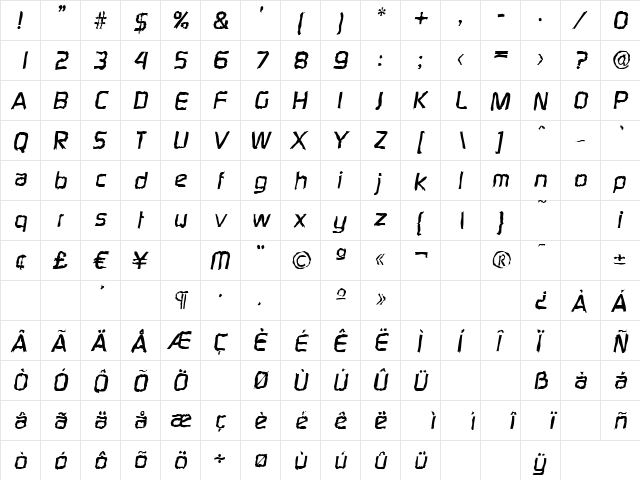
RandyBeckerRandom BoldItalic Font Preview
Design Context for RandyBeckerRandom Typeface
RandyBeckerRandom takes a measured approach to typography — its balanced proportions and neutral character make it a reliable workhorse for both digital and print work. Its italic angle brings a sense of urgency and motion to the letterforms. The heavy weight commands attention and anchors typographic hierarchies.
Pro Tip: Use RandyBeckerRandom for emphasis, pull quotes, and subheadings where its slanted energy can add rhythm to the layout.